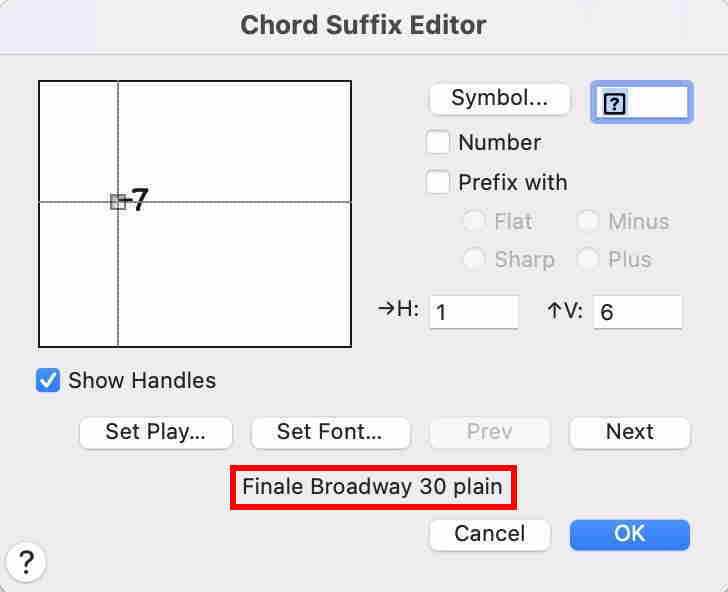
In the Problems side, a user has pointed out that Finale Broadway does not include the small m for minor chords—it can be added of course.
I pointed out that m for minor is not used in Broadway scores and parts since it can be easily mistaken for M Major in parts done by hand. The minus sign - is normally used to indicate minor chords instead.
Then it was pointed out that the minus sign - is not available by default for minor (again, it can be added).
Whaaaaaaaaatttttt??????? Leaving out the default sign for minor in a handwritten font emulation?
This is a mistake and should be corrected.